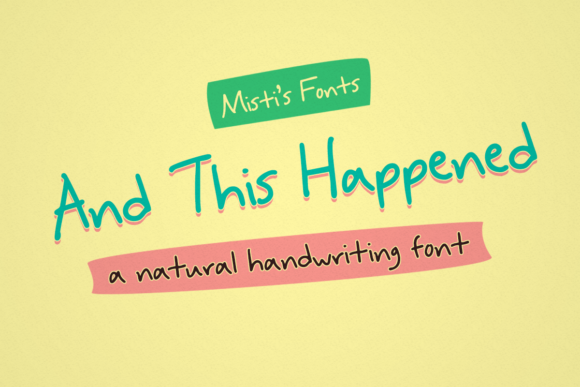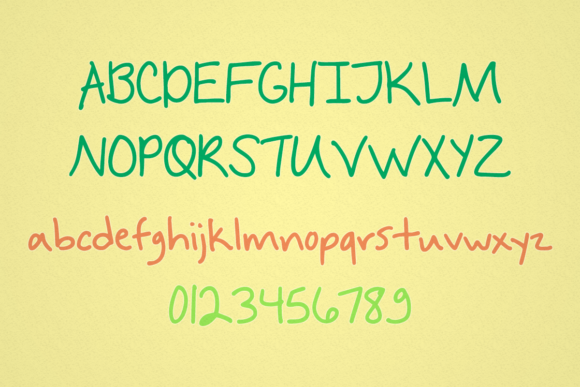
HomeScript FontsAnd This Happened Font Script Fonts And This Happened Font FacebookXPinterestWhatsApp And This Happened Font Poster 2 About And This Happened Font And This Happened is natural handwritten font that will add an authentic feel to your projects! DOWNLOAD NOW People also explored Cherrio Brush Font Evangeline Font Lovely Font Paulo Pacito Font Mermaid in Love Font Quay Font Permanent Font King and Queen Monogram Font Tennis Font 272 0 TagsAnd This Happened Font Previous articleLondon Calling FontNext articleXiluman Font LEAVE A REPLY Cancel reply Comment: Please enter your comment! Name:* Please enter your name here Email:* You have entered an incorrect email address! Please enter your email address here Website: Save my name, email, and website in this browser for the next time I comment. Personal Use Free Aragon Personal Use Free Read more about this font Pridaem Cooper Personal Use Free Read more about this font Karmatic Arcade Personal Use Free Read more about this font BD Medled Personal Use Free Read more about this font BLOG The 10 Best Handwriting Fonts to Add Personality to Your Designs 10 of the Best Handwriting Fonts for Adding Personality to Your Designs There will undoubtedly be no other better choice than handwriting fonts to give... Exploring Font Trends How to Install and Use Fonts on Windows, macOS, and Web Projects Elegant Wedding Invitation Fonts – Handwritten & Script Fonts